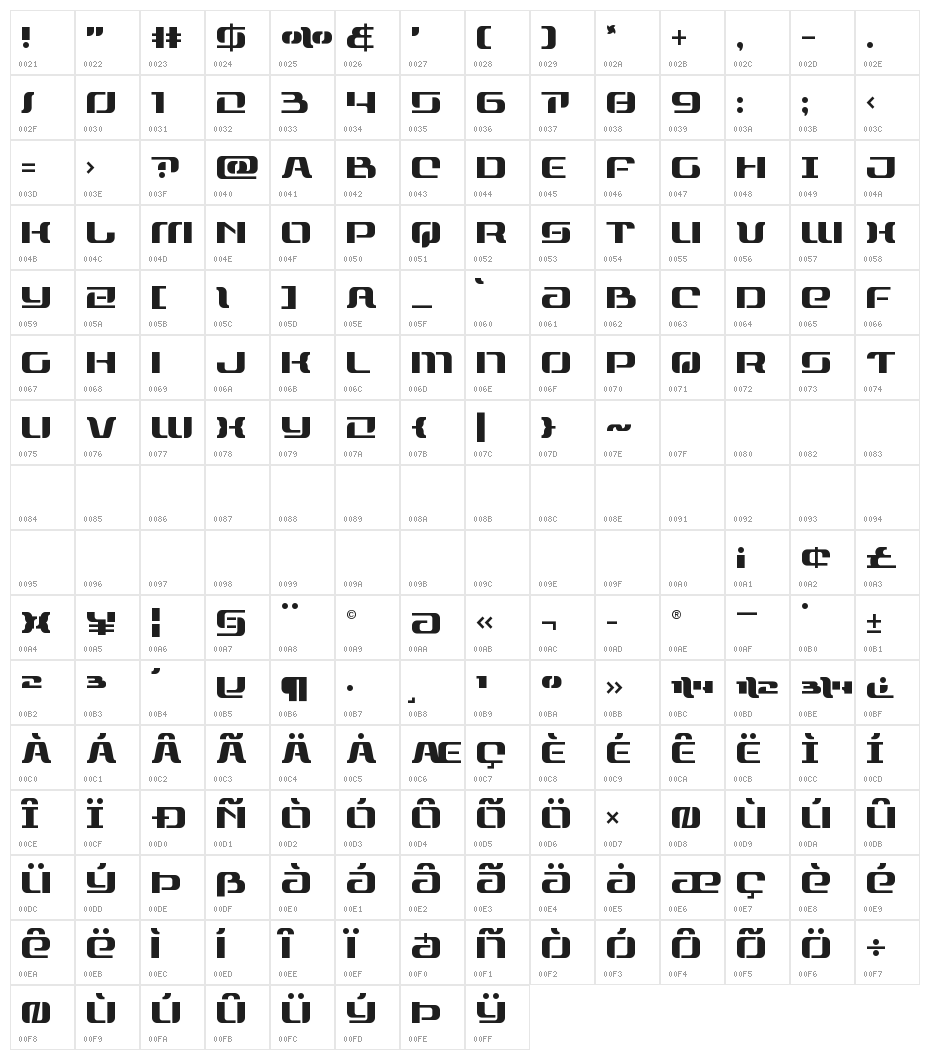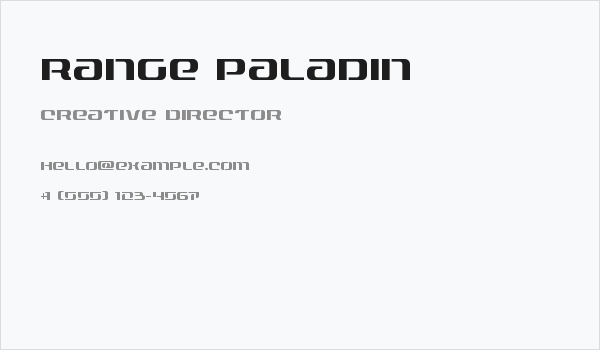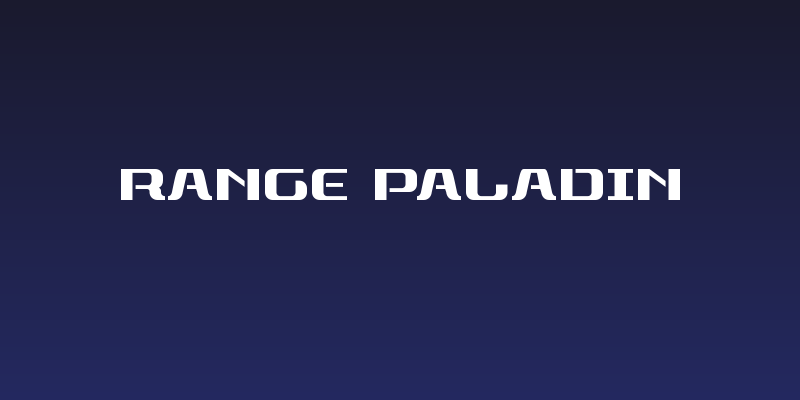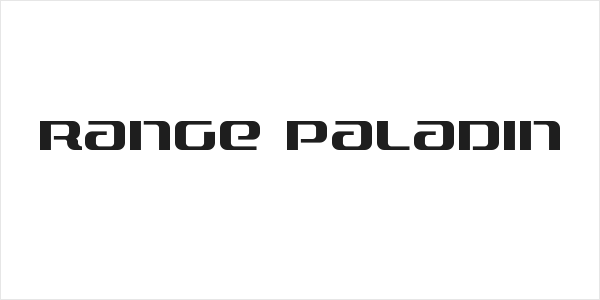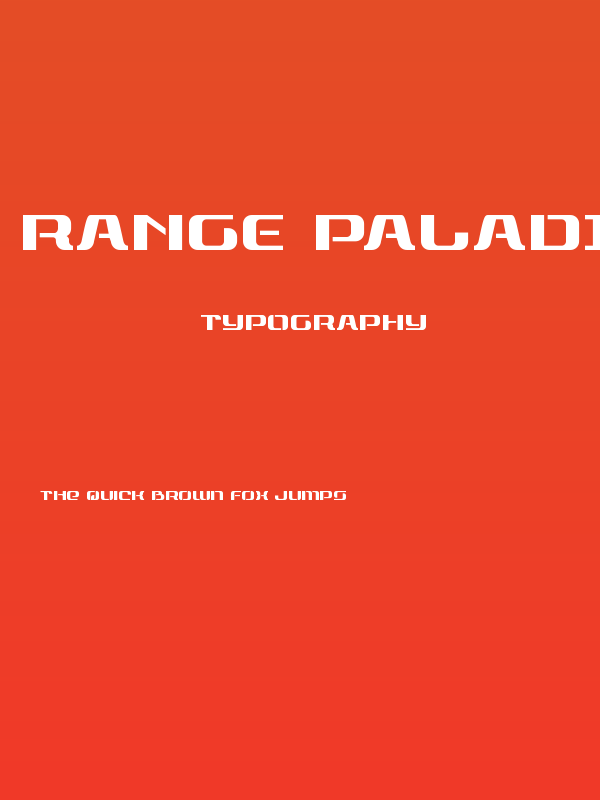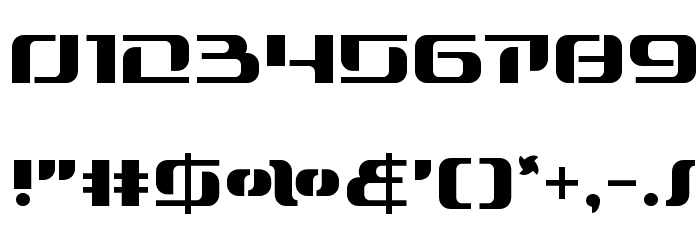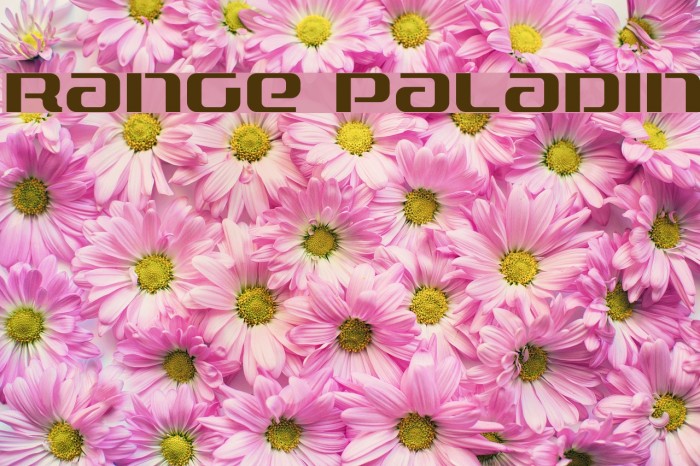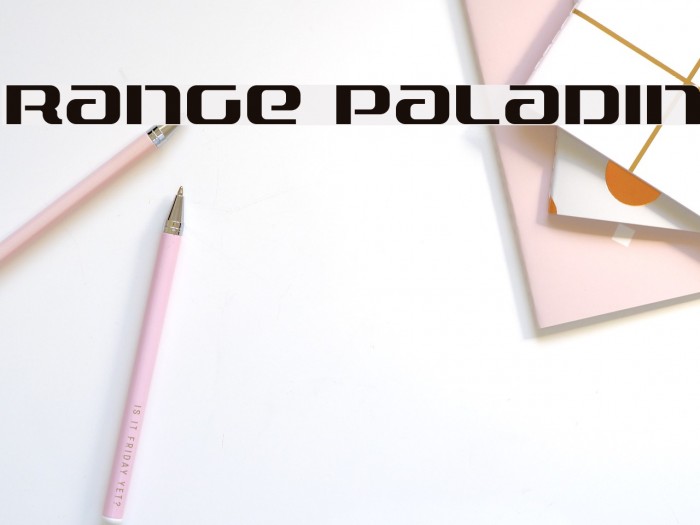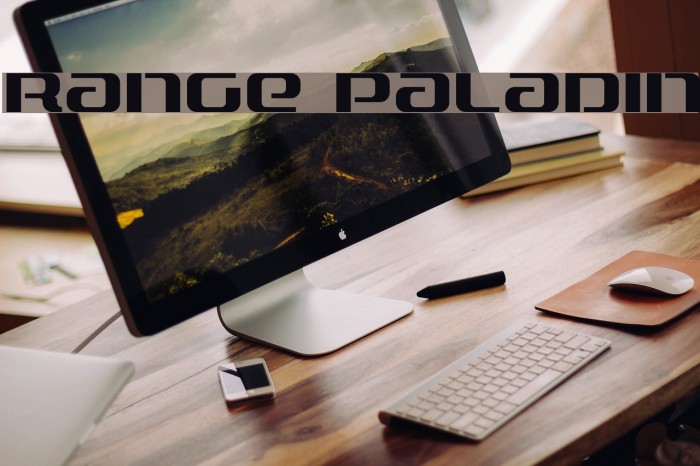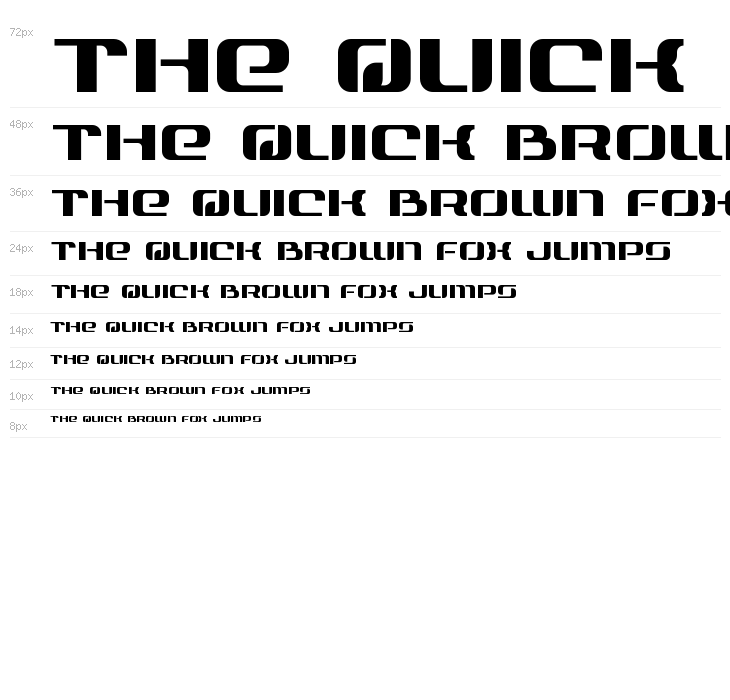
Range Paladin Font
Range Paladin Description
This font features a bold and futuristic design with geometric elements and sharp angles. The characters are uniquely styled with cut-out sections and a strong, solid appearance, making it stand out in any design. The uppercase and lowercase letters maintain a consistent style, while the numbers and special characters complement the overall aesthetic. The font's modern and edgy look is perfect for projects that require a contemporary and eye-catching typeface.
| Proposed Projects | Ideal for technology branding, sci-fi movie posters, video game titles, and modern advertising campaigns. |